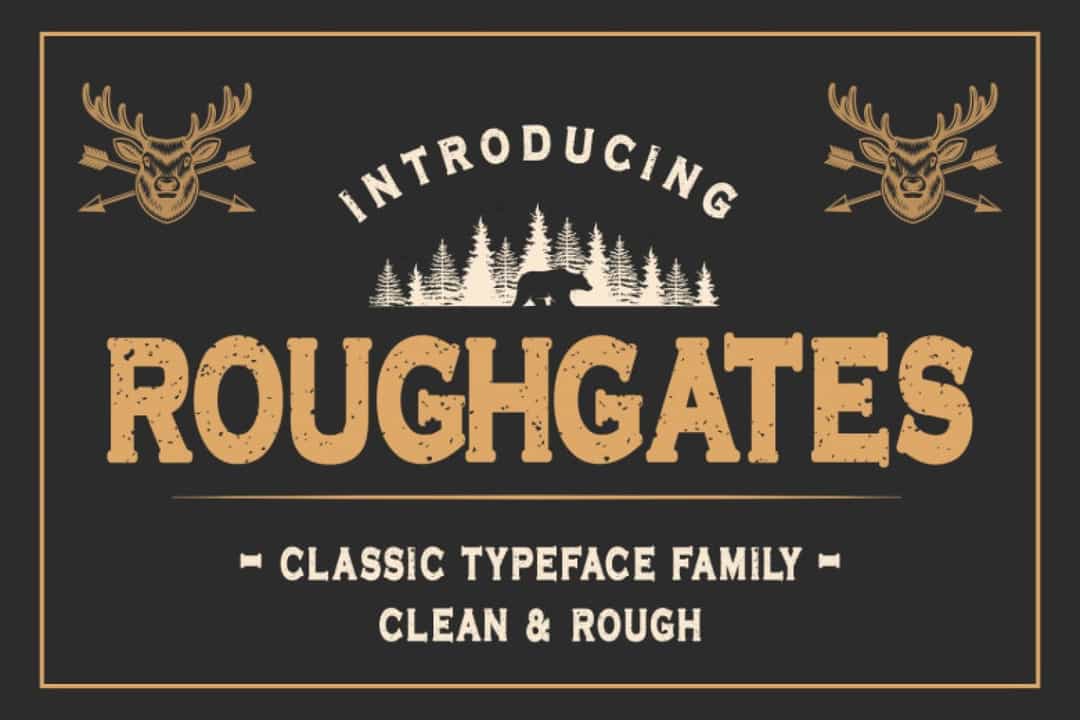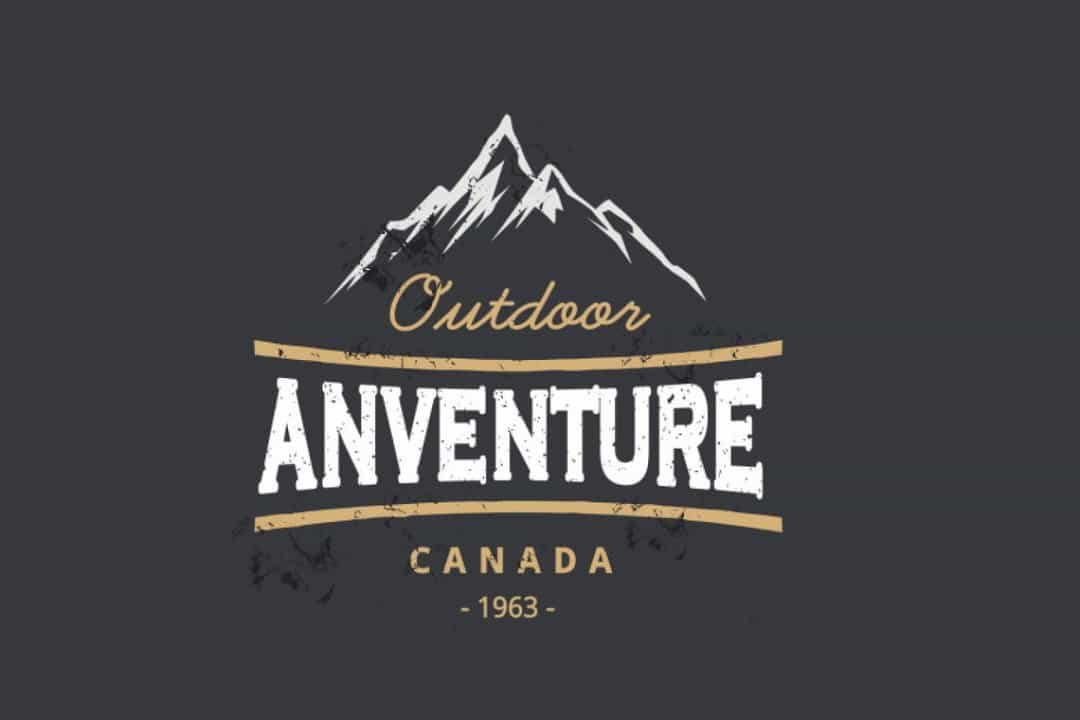
Roughgates is a large and bold display typeface made up of lettered serif typeface that stands out with its vintage aesthetic. Roughgates is multilingual with western characters as well as eastern ones; its two fonts include rough and clean versions for optimal use! Try including this font into your creative projects and be amazed at how it makes them pop out from their respective environments!